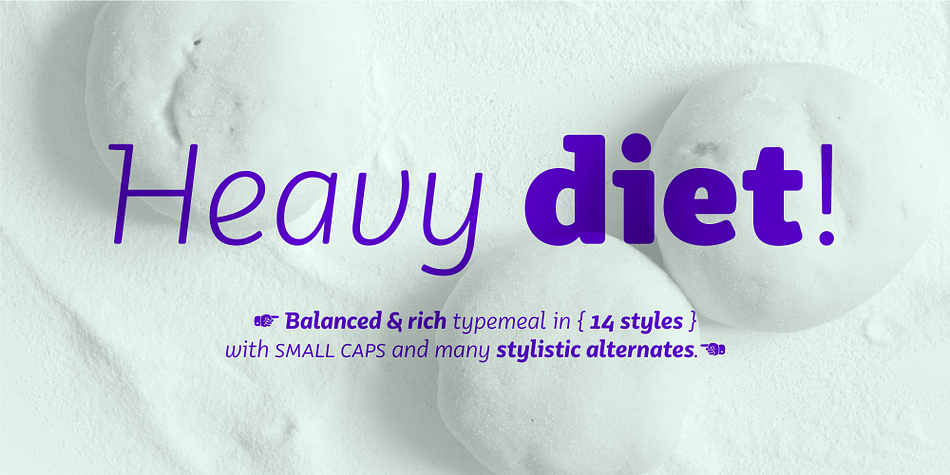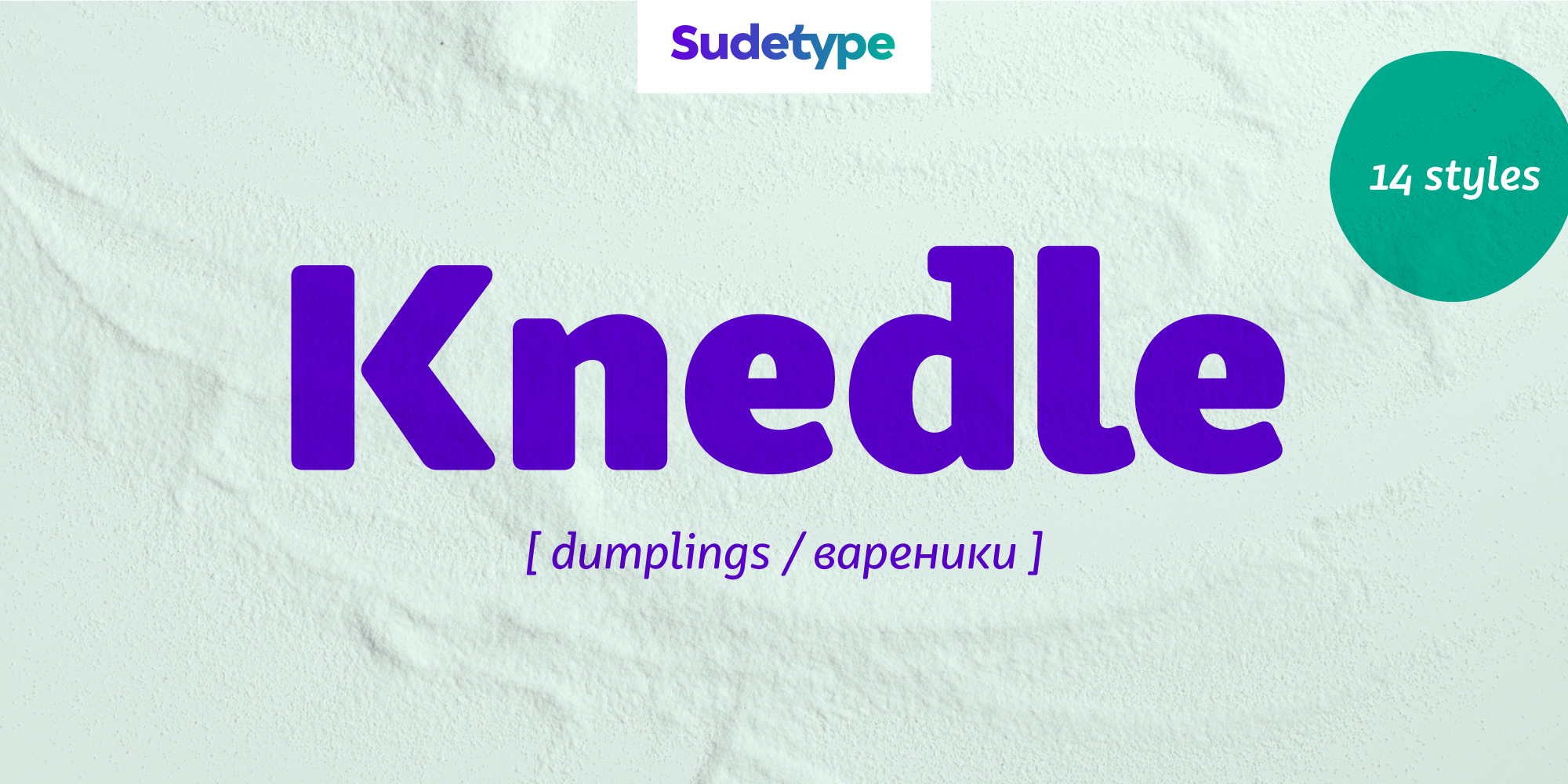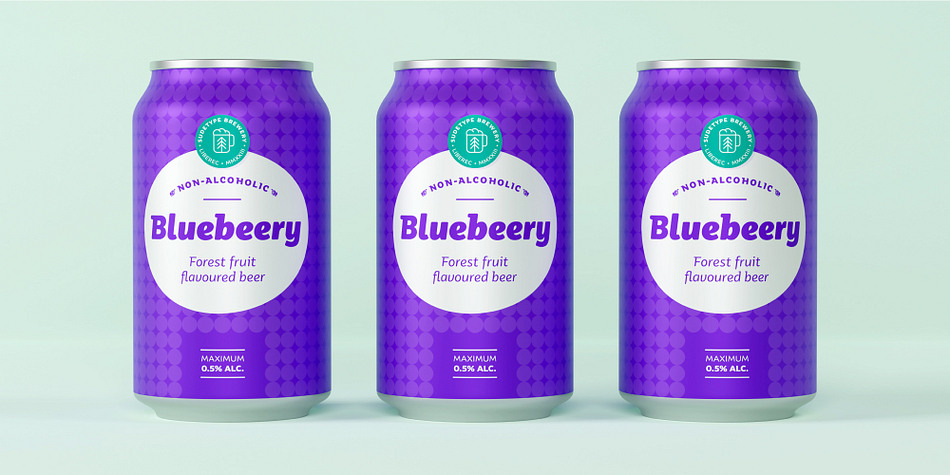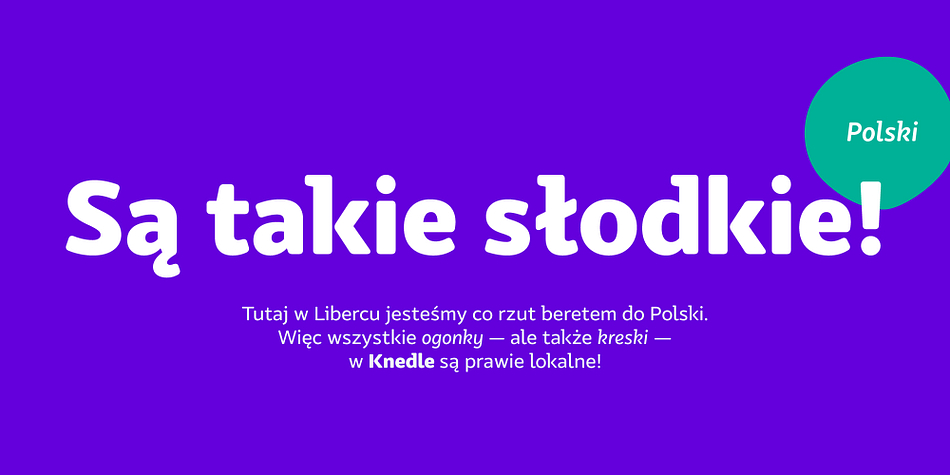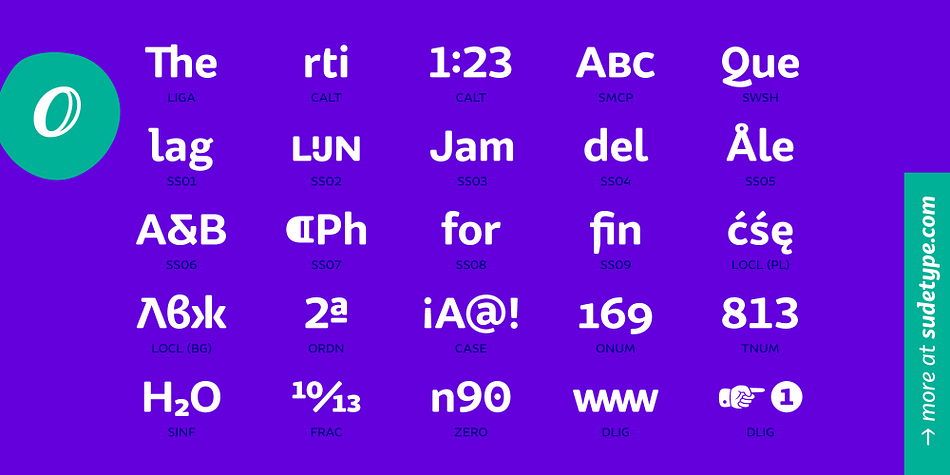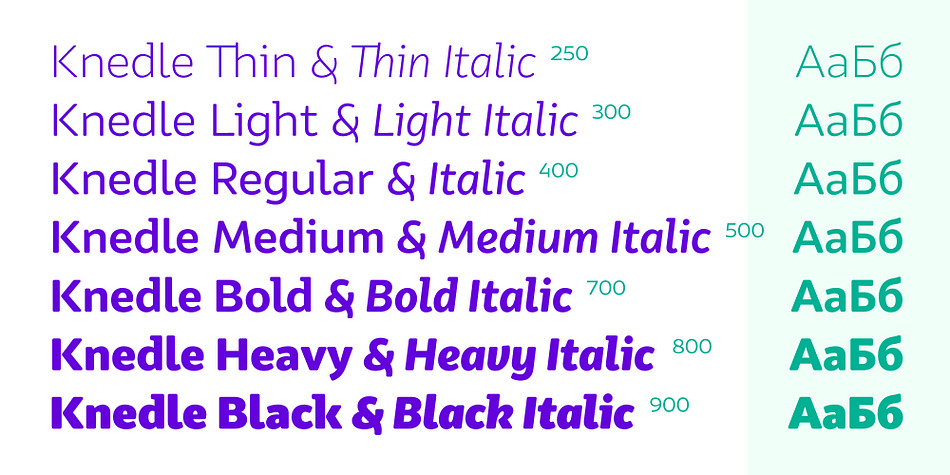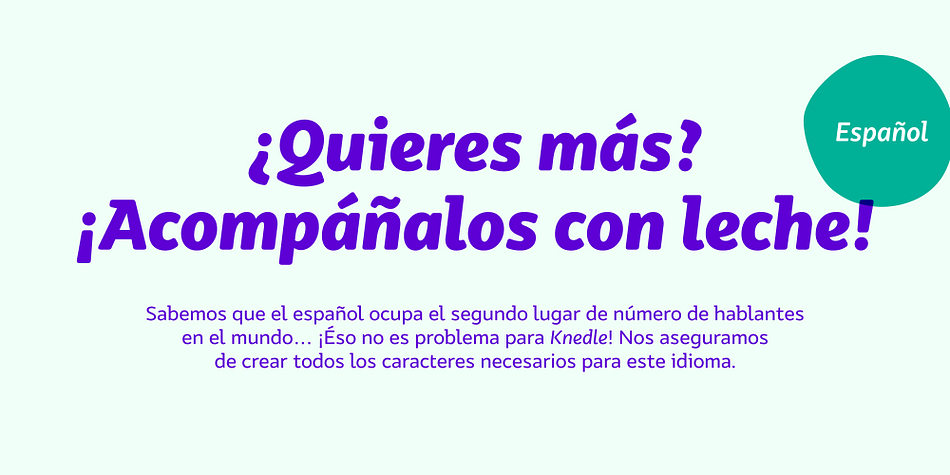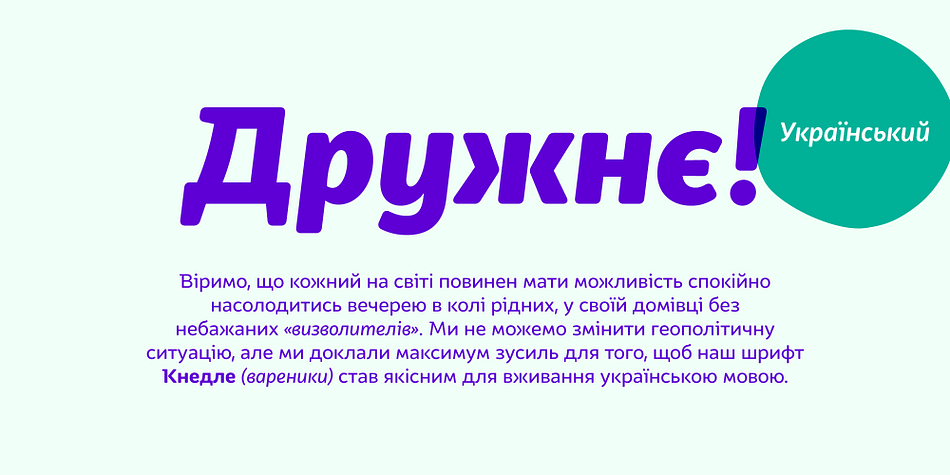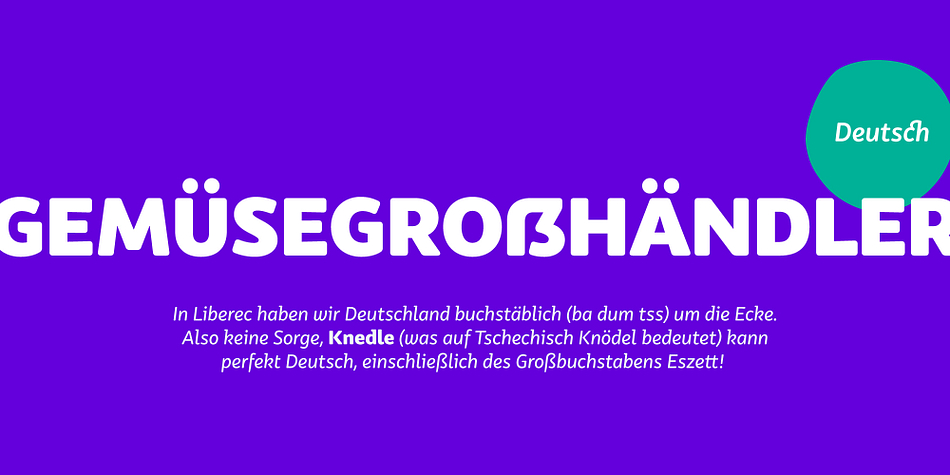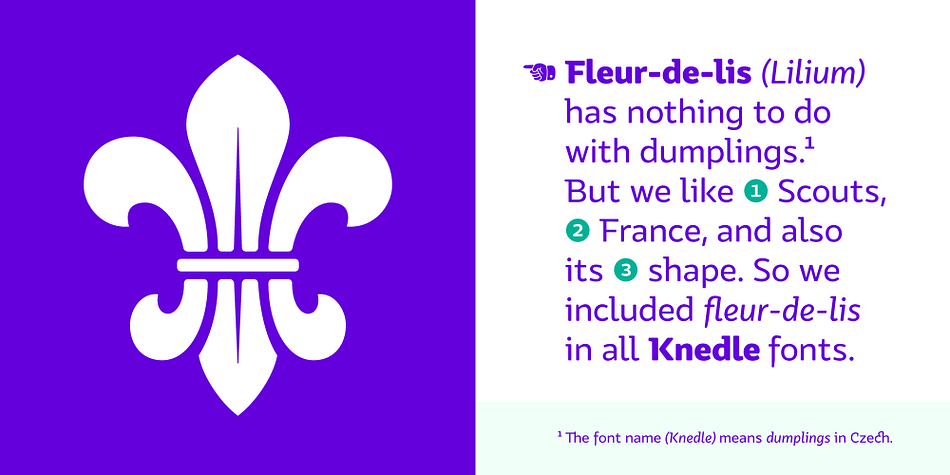
Knedle
Knedle is a sans serif font family. This typeface has fourteen styles and was published by Sudetype.
A tasteful sans-serif with a delicate italics, ideal for branding and packaging design. Knedle [dumplings] are characterized by carefully balanced proportions and soft stroke endings, which gives the typeface credible yet friendly expression. Italics are not just slanted versions of roman styles, but with their delicate letter shapes and narrower proportions they form a taste-balanced counterpoint.
With 14 styles (Latin & Cyrillic) more than 1460 glyphs per font and rich OpenType features (including many stylistic sets) Knedle are perfectly suited for the needs of branding or packaging design. Thanks to their excellent legibility and smart contextual alternates, they can also work surprisingly well as a signage font. Bon appetite!